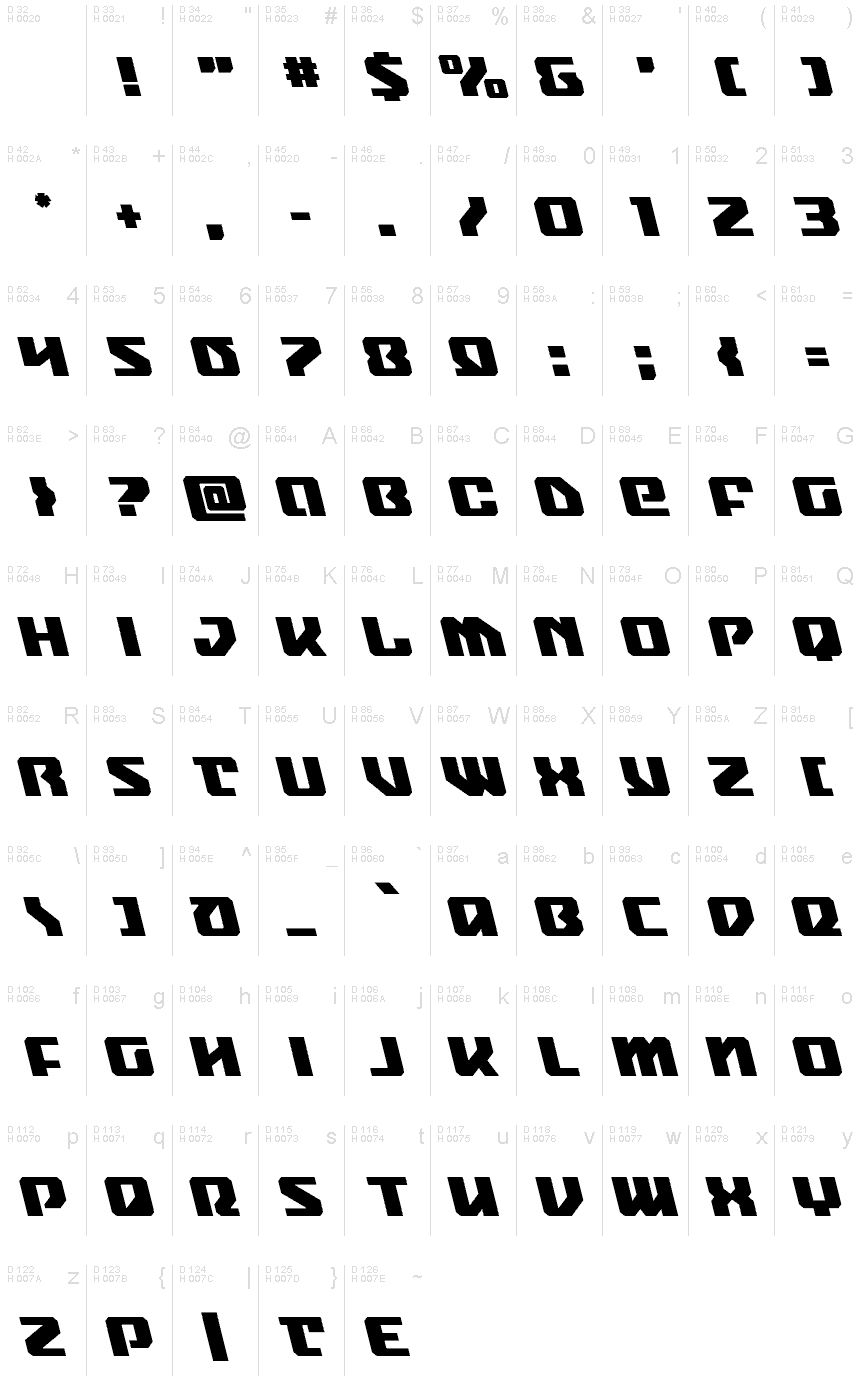
Legacy Cyborg 2 Leftalic font by Iconian Fonts is a futuristic expanded display font that combines angular curves with strongly geometric letters and numbers. This bold and techno-inspired alphabet is designed to be at the forefront of creativity, along with its robotic and industrial overall design.
Use it for video games, movie posters, book covers, banners, online posts and advertisements, branding designs, typography designs for t-shirts or other items. Free to download!